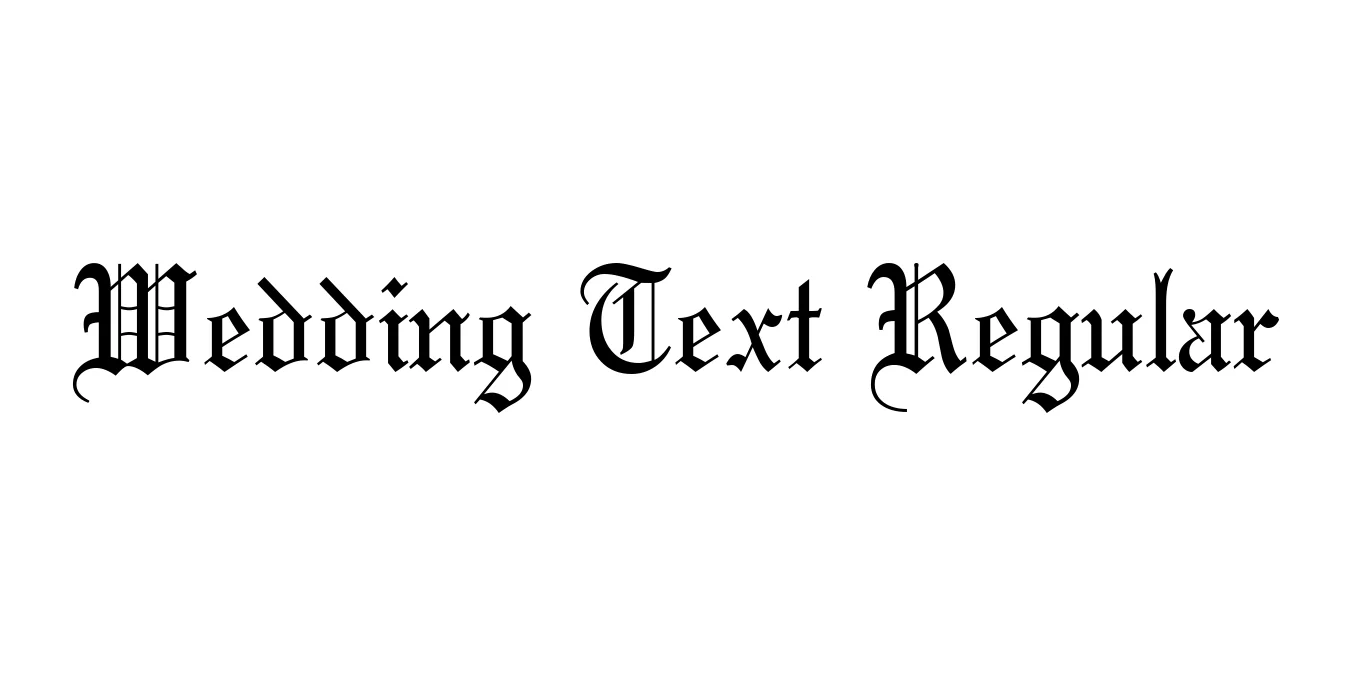
Wedding Text Regular
Designed by Morris Fuller Benton
| Category | Blackletter / Gothic |
| Designer | Morris Fuller Benton |
Wedding Text Regular is a classic blackletter typeface originally designed by Morris Fuller Benton for the American Type Founders (ATF) in 1901. Unlike many dense and illegible gothic scripts of its era, Wedding Text was specifically crafted for formal stationery, invitations, and diplomas, prioritizing clarity and elegance. Its structure is based on the traditional Old English style but refined with smoother curves and more open counters, making it a staple for traditional typographic needs for over a century.
Throughout the 20th century, this font became the standard for nuptial announcements and religious documents. Its timeless appeal lies in its ability to convey a sense of history, authority, and solemnity without the overwhelming complexity of more ornate Fraktur styles. Today, Wedding Text Regular remains a popular choice for designers looking to evoke a sense of prestige and tradition in modern digital and print projects.
Wedding Text Regular Best Uses
The definitive choice for traditional, elegant, and high-end formal wedding announcements.
Provides a sense of historical authority and prestige for official documentation.
Excellent for luxury heritage brands or artisanal products requiring a classic European aesthetic.
Perfect for personalized letterheads, menus, and high-class event programs.